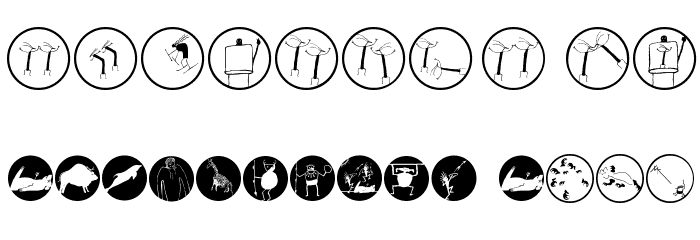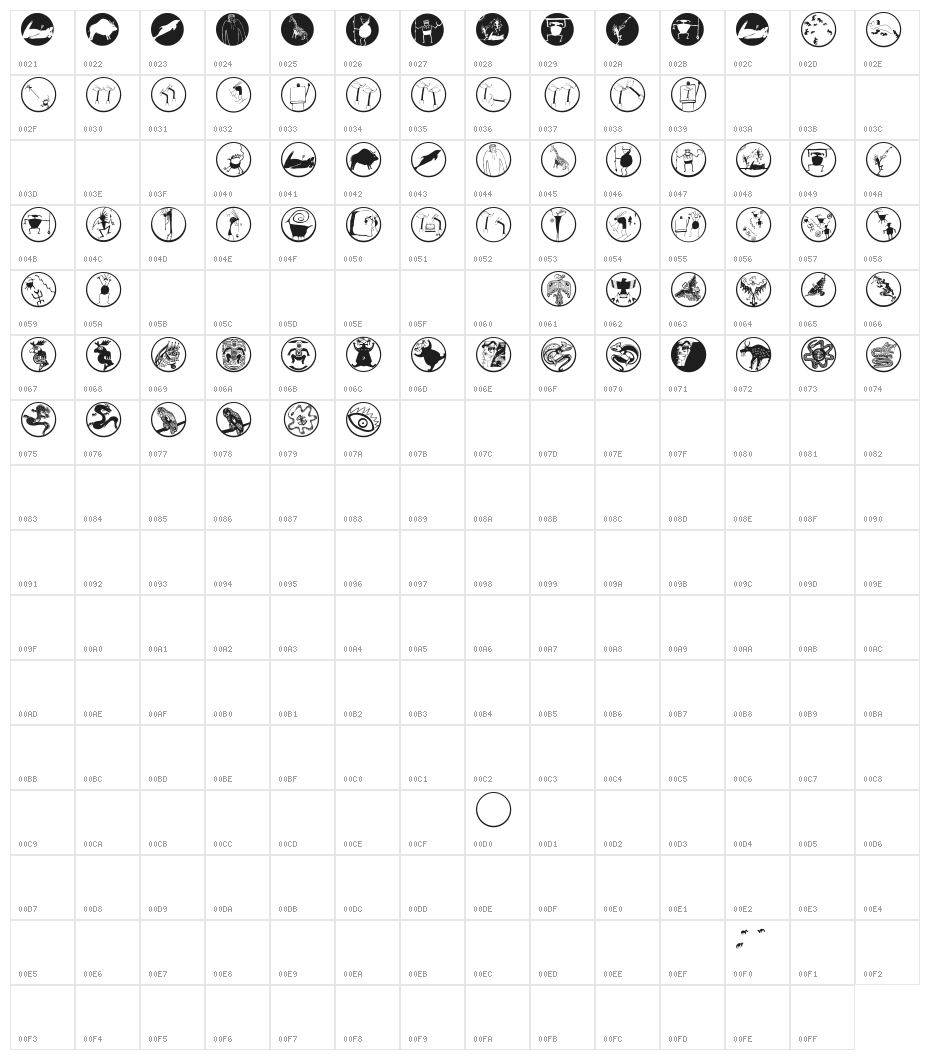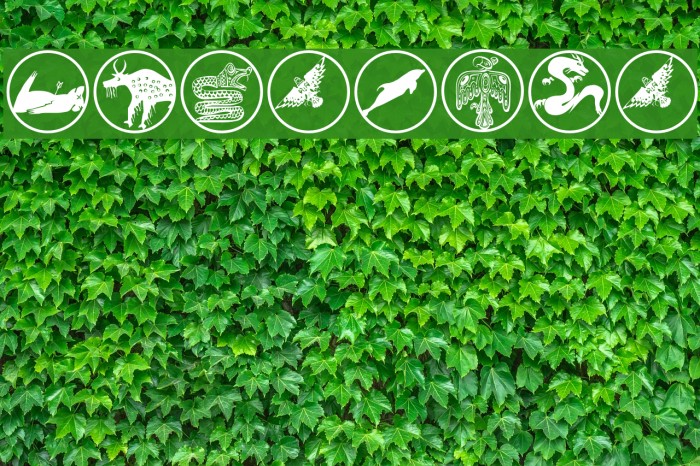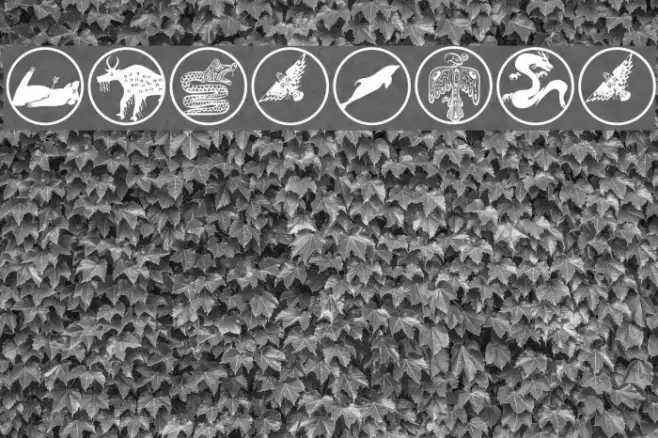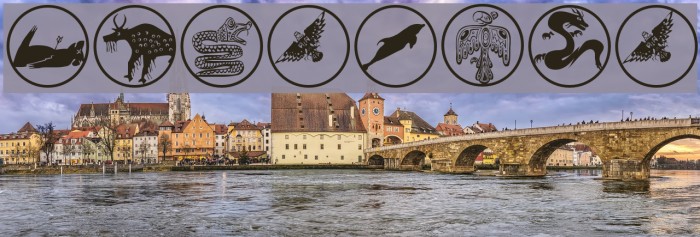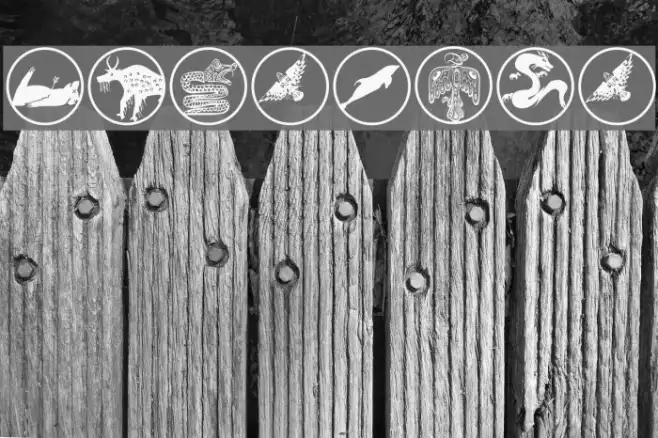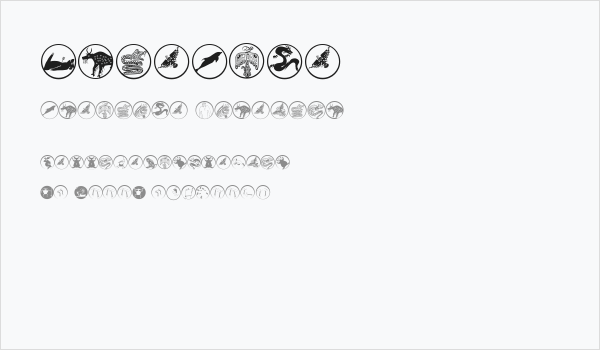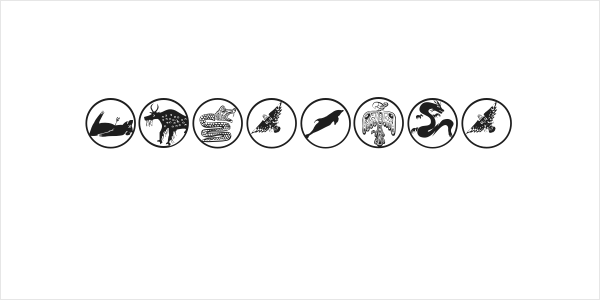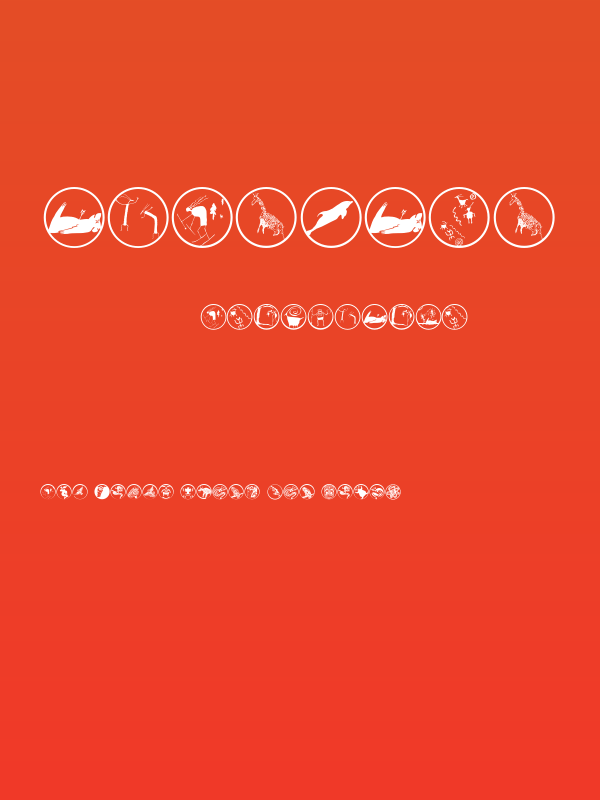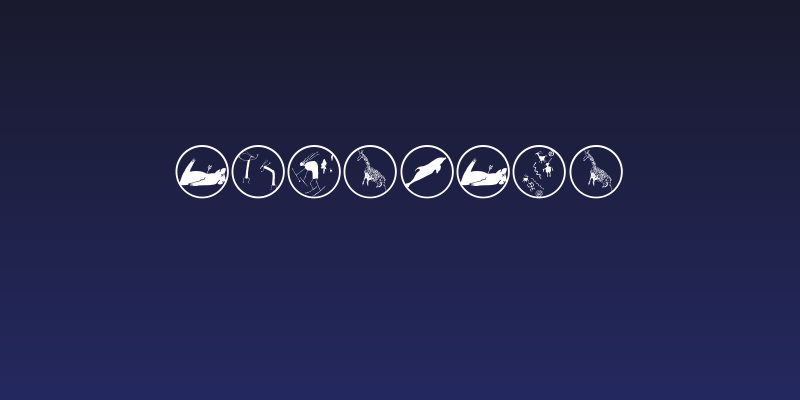
ArteCave Font
ArteCave Description
A highly decorative and illustrative typeface inspired by prehistoric cave art, featuring hand-drawn, pictorial glyphs within circular enclosures. Each character is represented by a unique, whimsical drawing reminiscent of ancient petroglyphs and animal figures, rather than traditional letterforms.
| Overall Style | Decorative, Primitive, Artistic |
| Use Case | Logos, Posters, Themed Headlines, Art Installations |
| Proposed Projects | ChildrenΓ’β¬β’s books, educational materials, museum displays, themed posters, creative branding, art projects. |